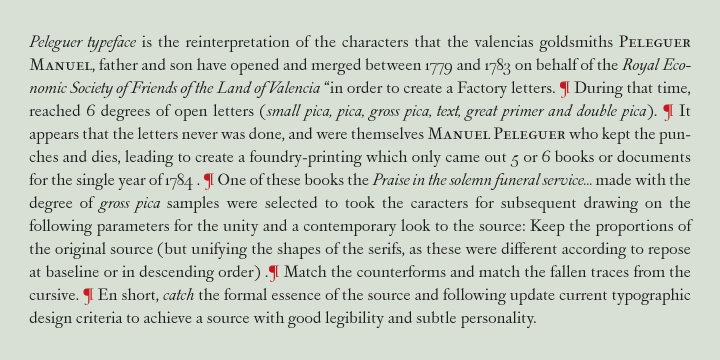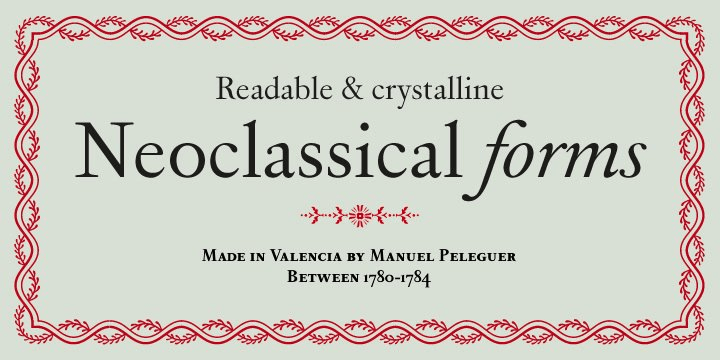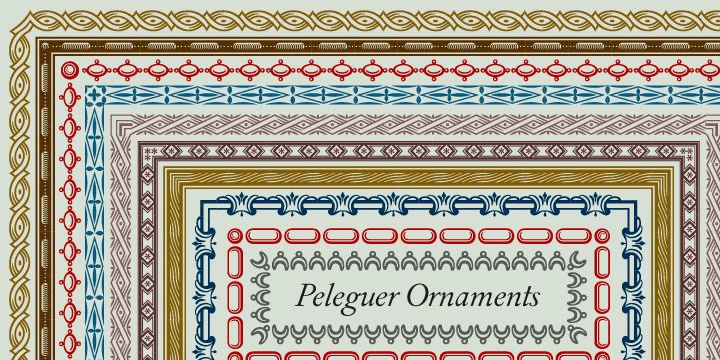
About Peleguer
Peleguer typeface is the reinterpretation of the characters that the valencias goldsmiths Peleguer Manuel, father and son had opened and merged between 1779 and 1783 on behalf of the Royal Economic Society of Friends of the Land of Valencia ?in order…